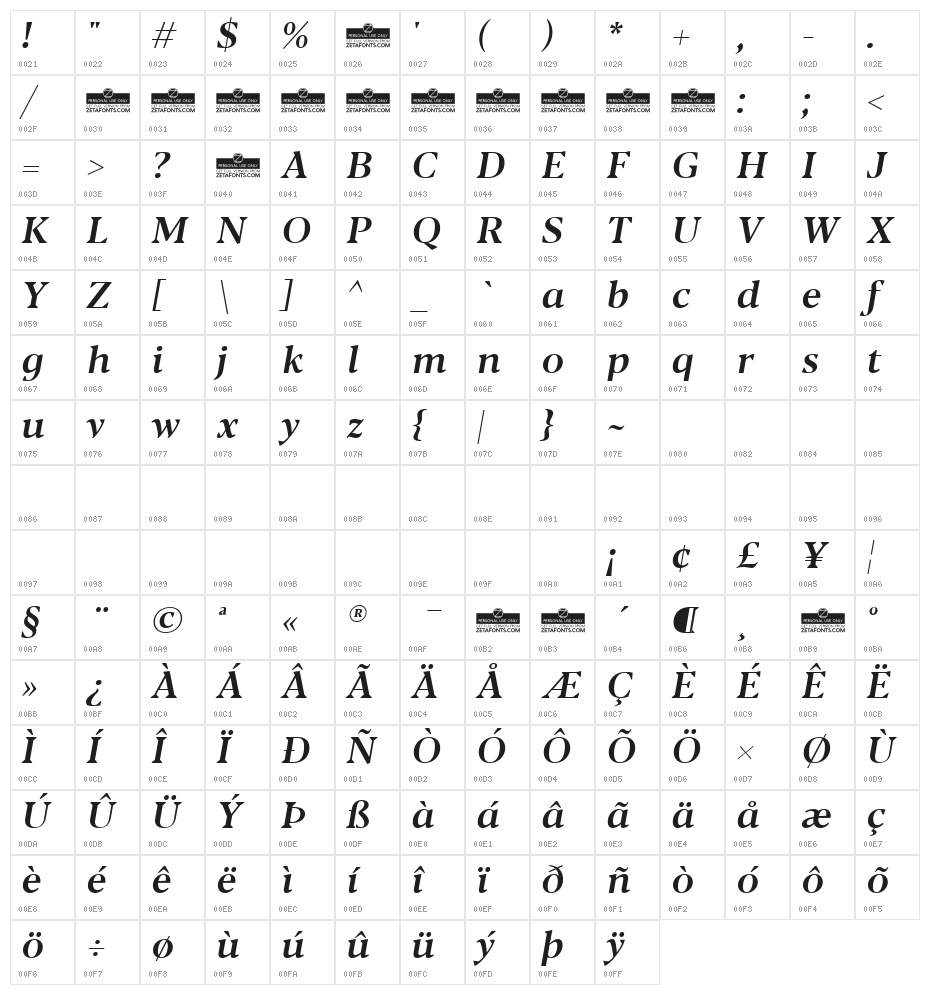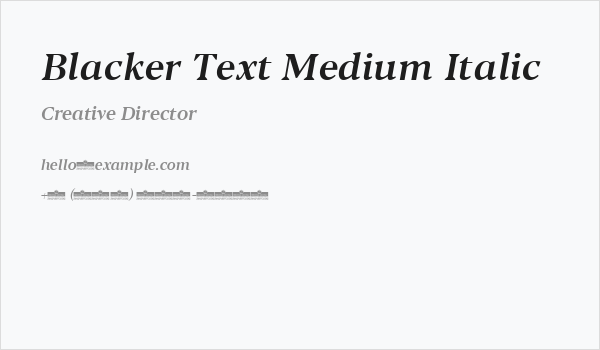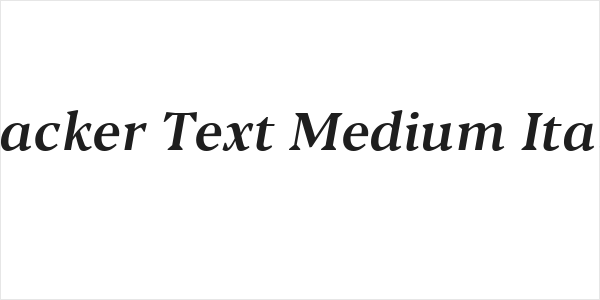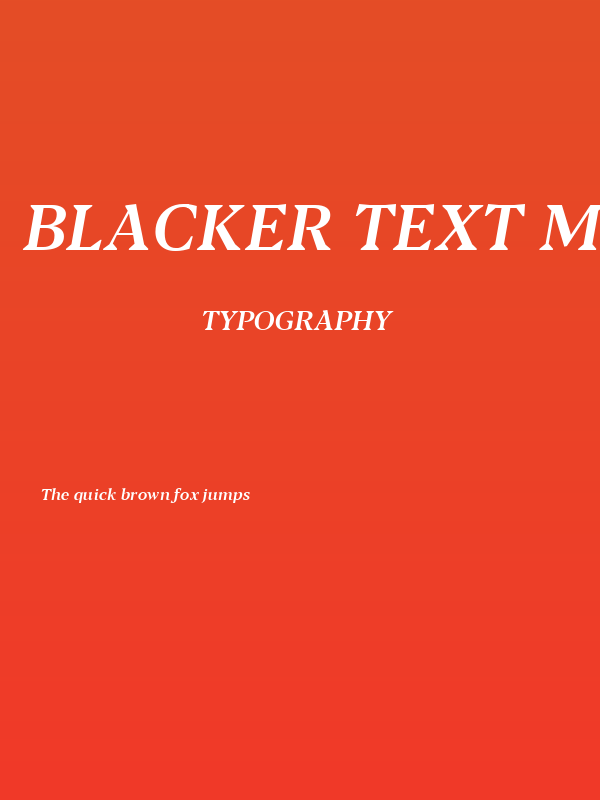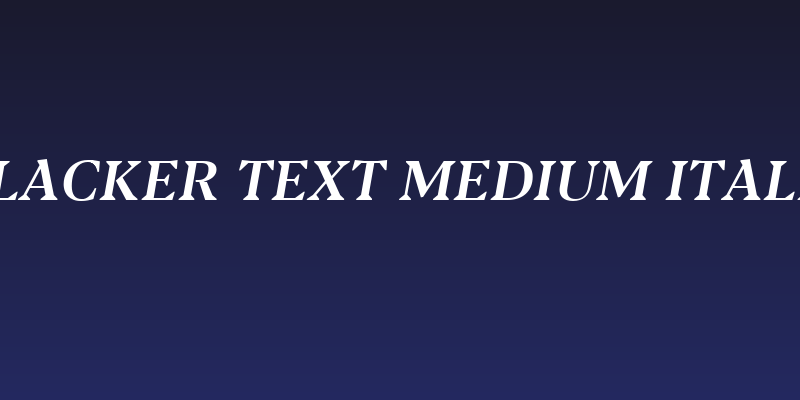
Blacker Text Medium Italic Font
Blacker Text Medium Italic Description
This font exhibits a sophisticated and elegant style with a medium weight and italic slant. The characters are well-defined with a classic serif design, providing a sense of tradition and formality. The italic angle adds a dynamic and flowing appearance, making it suitable for both formal and creative applications. The uppercase letters are bold and commanding, while the lowercase letters maintain a graceful and readable form. The numerals and special characters are consistent with the overall style, ensuring versatility across various uses.
| Proposed Projects | Ideal for editorial design, book covers, formal invitations, and branding projects that require a touch of elegance and tradition. |